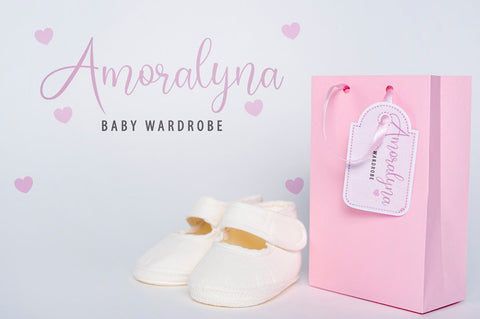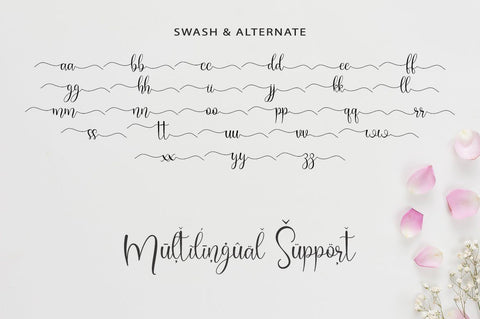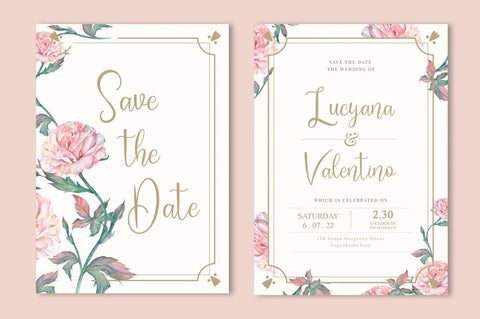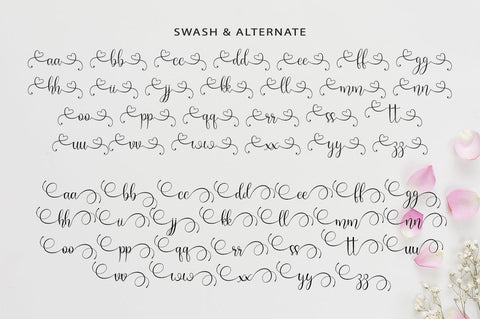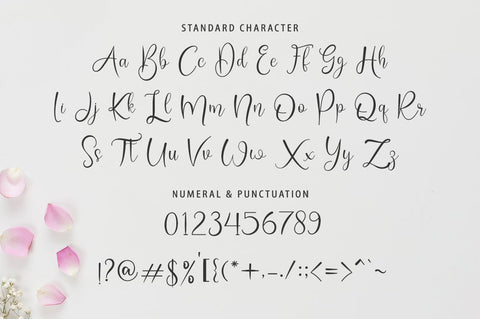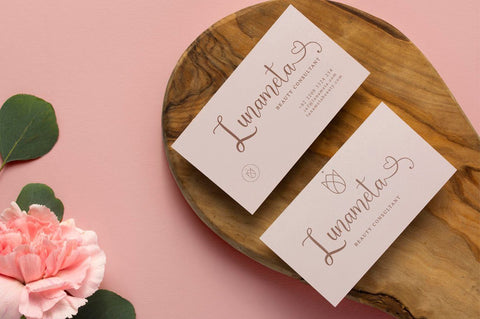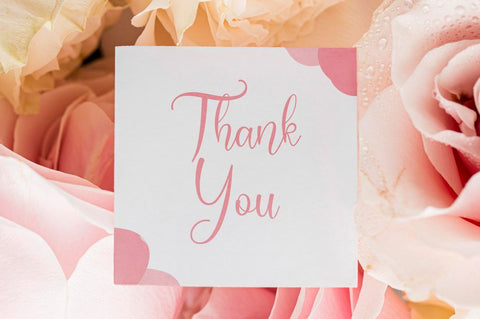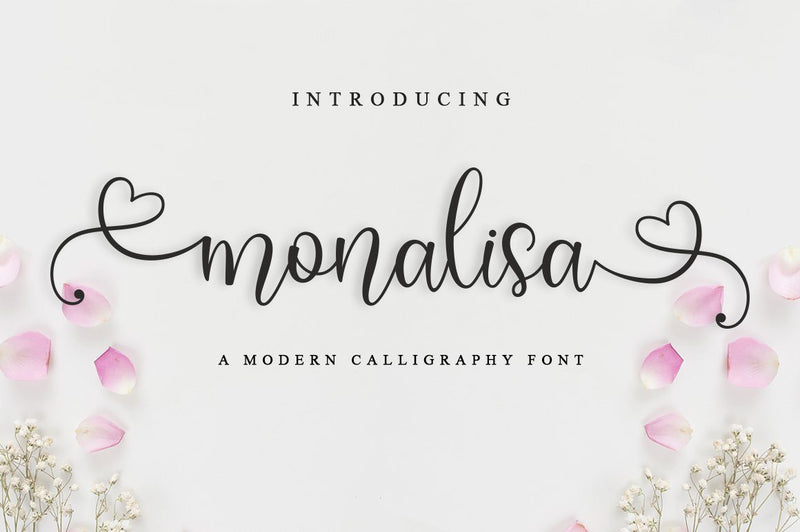
monalisa lovely font
The "monalisa" is a stylish feminine font. It includes amazing swashes which will add a feminine touch to your designs.
Numeral and Punctuation
156 Swashes
International Language